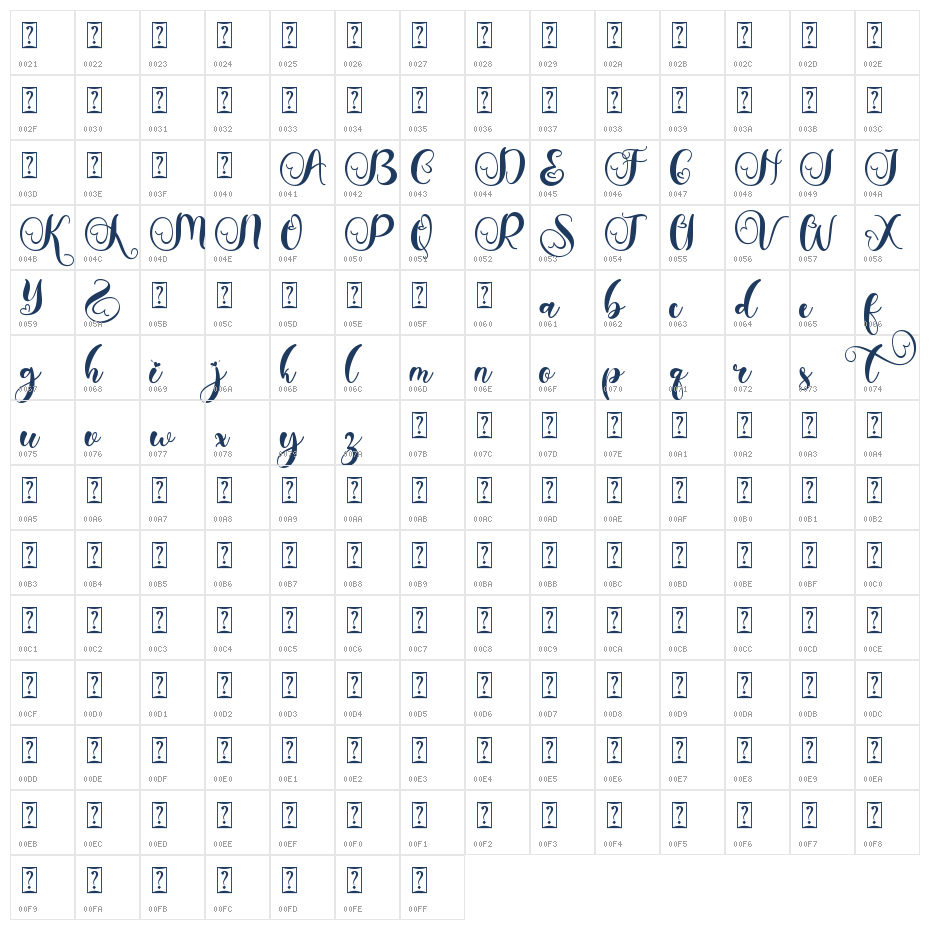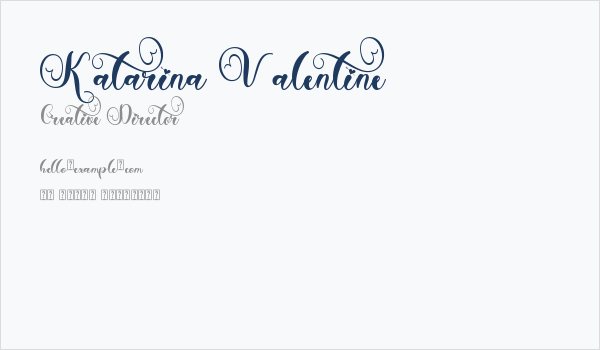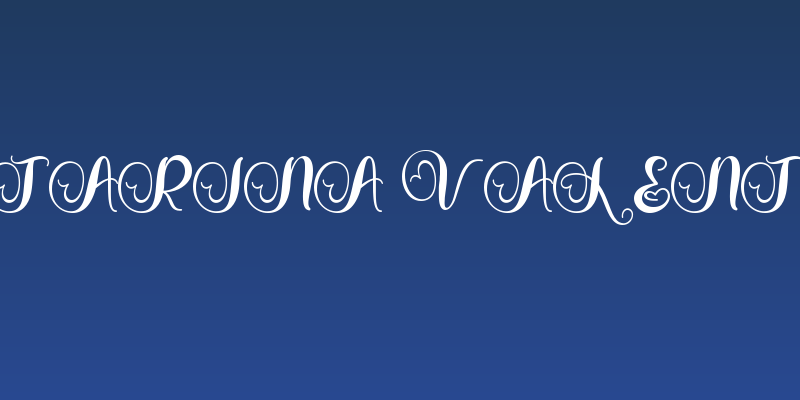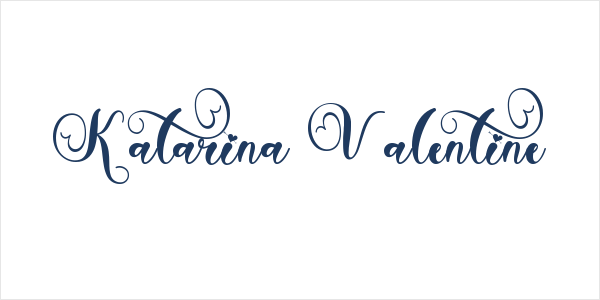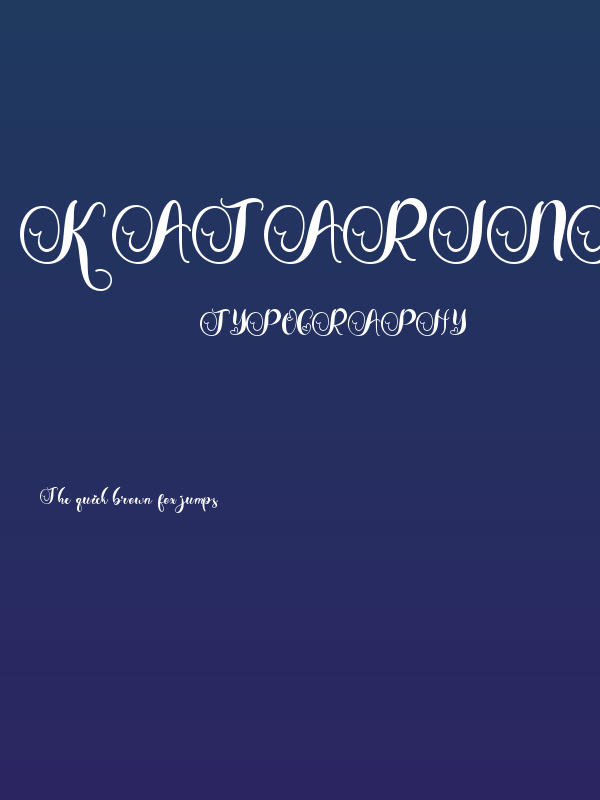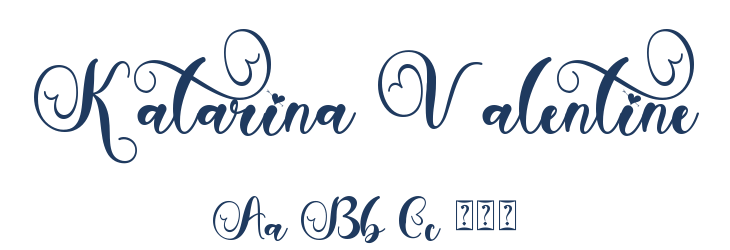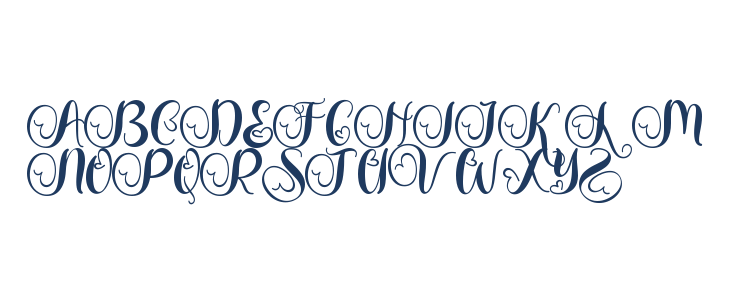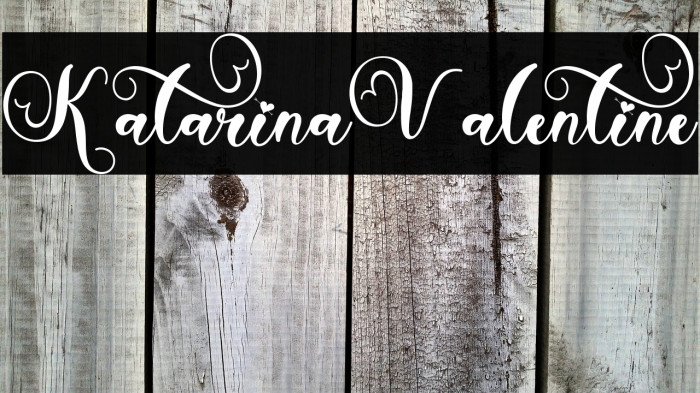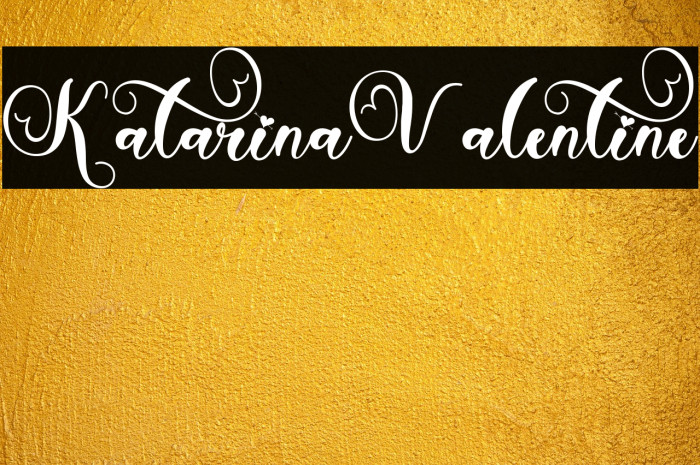
Katarina Valentine Font
Katarina Valentine Description
A decorative, cursive script font with elegant swirls and flourishes, featuring both uppercase and lowercase letters, as well as special characters.
Katarina Valentine
| Overall Style | Elegant, Decorative, Script |
| Use Case | Headlines, Invitations, Logos, Decorative Text |